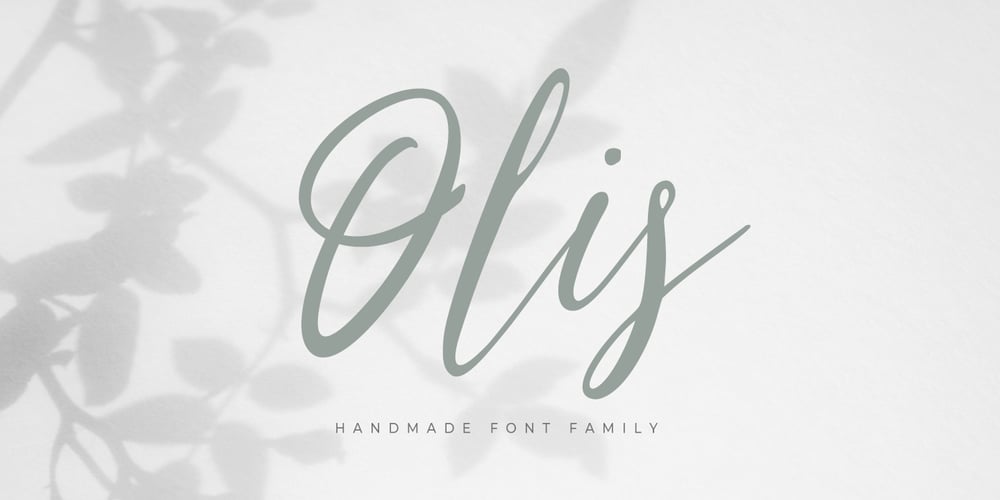
Olis Font Family was designed by Roman Polishchuk and published by Roman Polishchuk. Olis contains 3 styles and family package options. Olis is a stylish, fresh new handwritten script. Olis comes with two weights, numerals, punctuations, and some variations on character including OpenType alternates, and common ligatures. It helps set your designs apart by adding a custom-lettered look. You will also find that its initial and terminal letters can enhance your designs in new and creative ways. Hand-drawn leaves, plants, flowers, as well as large and small snowflakes add original detail while complementing the font perfectly. If you like this font you might also like an aesthetic text generator by the same author.